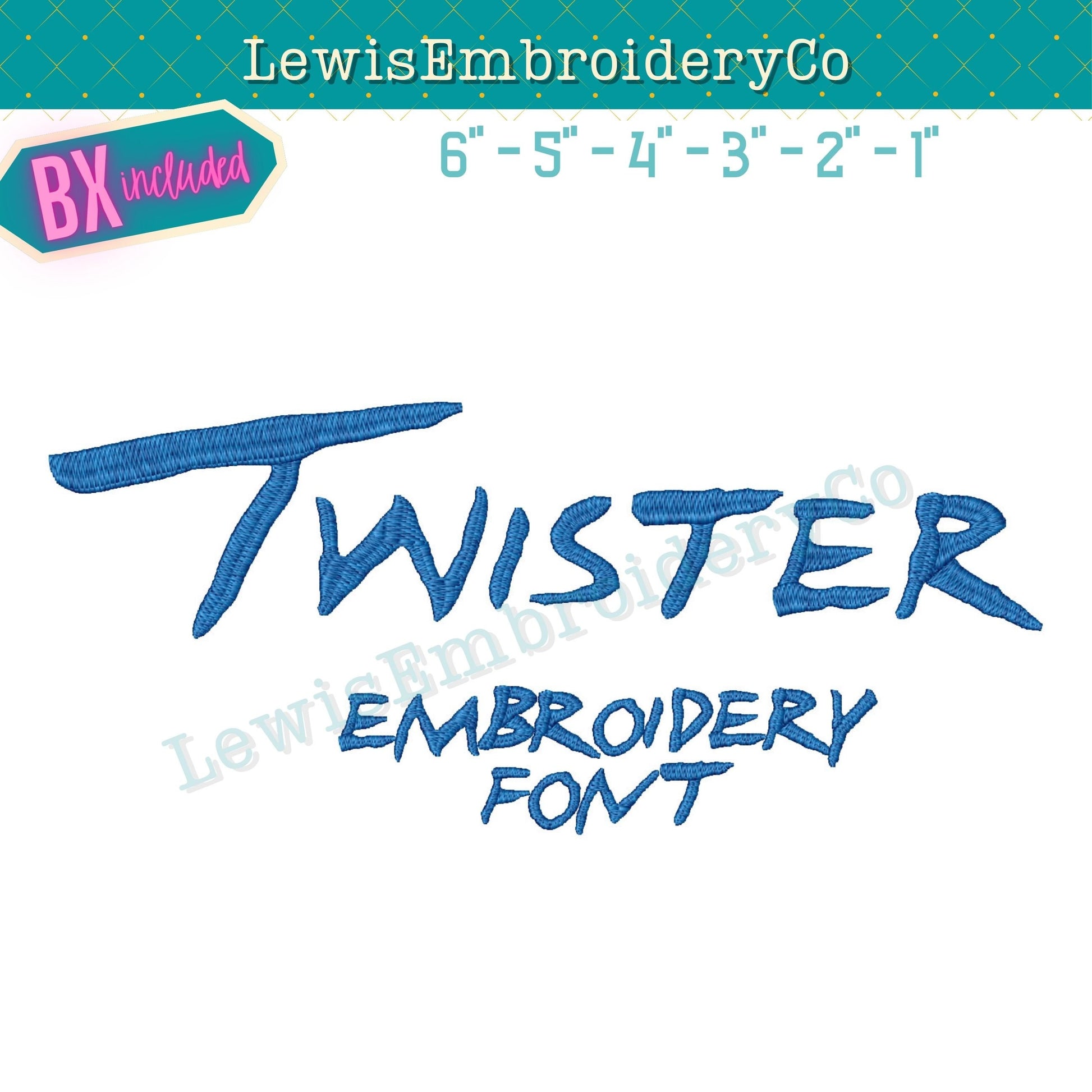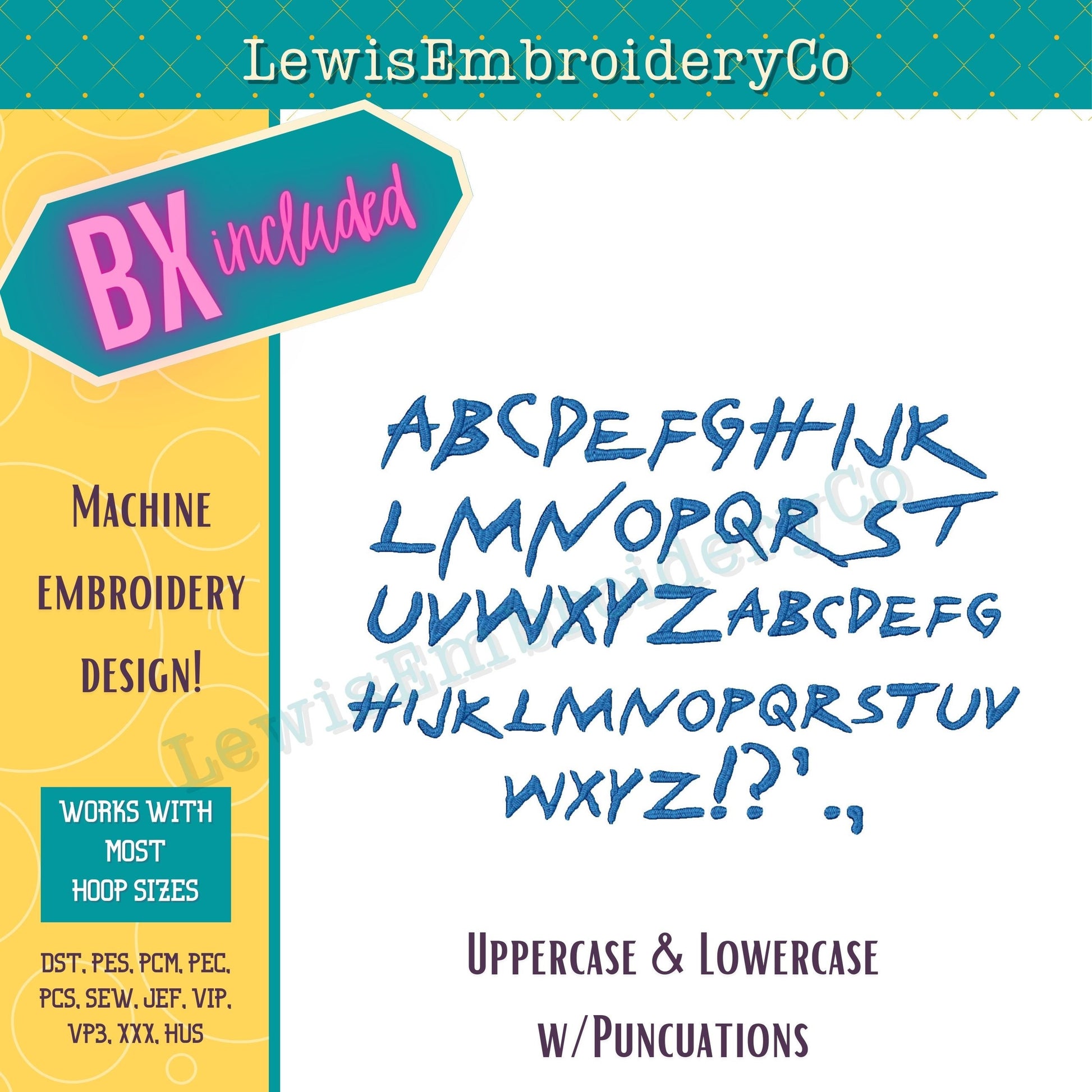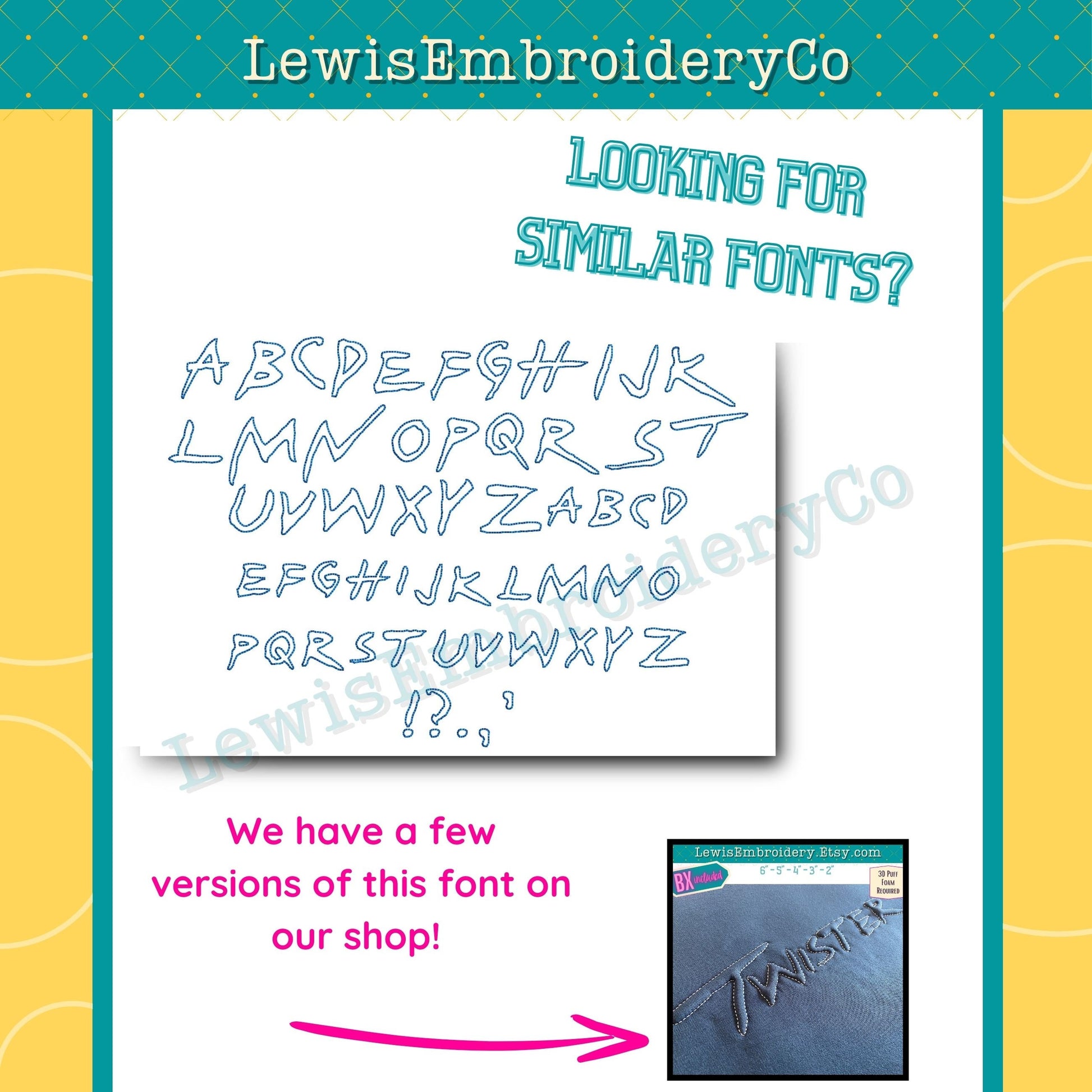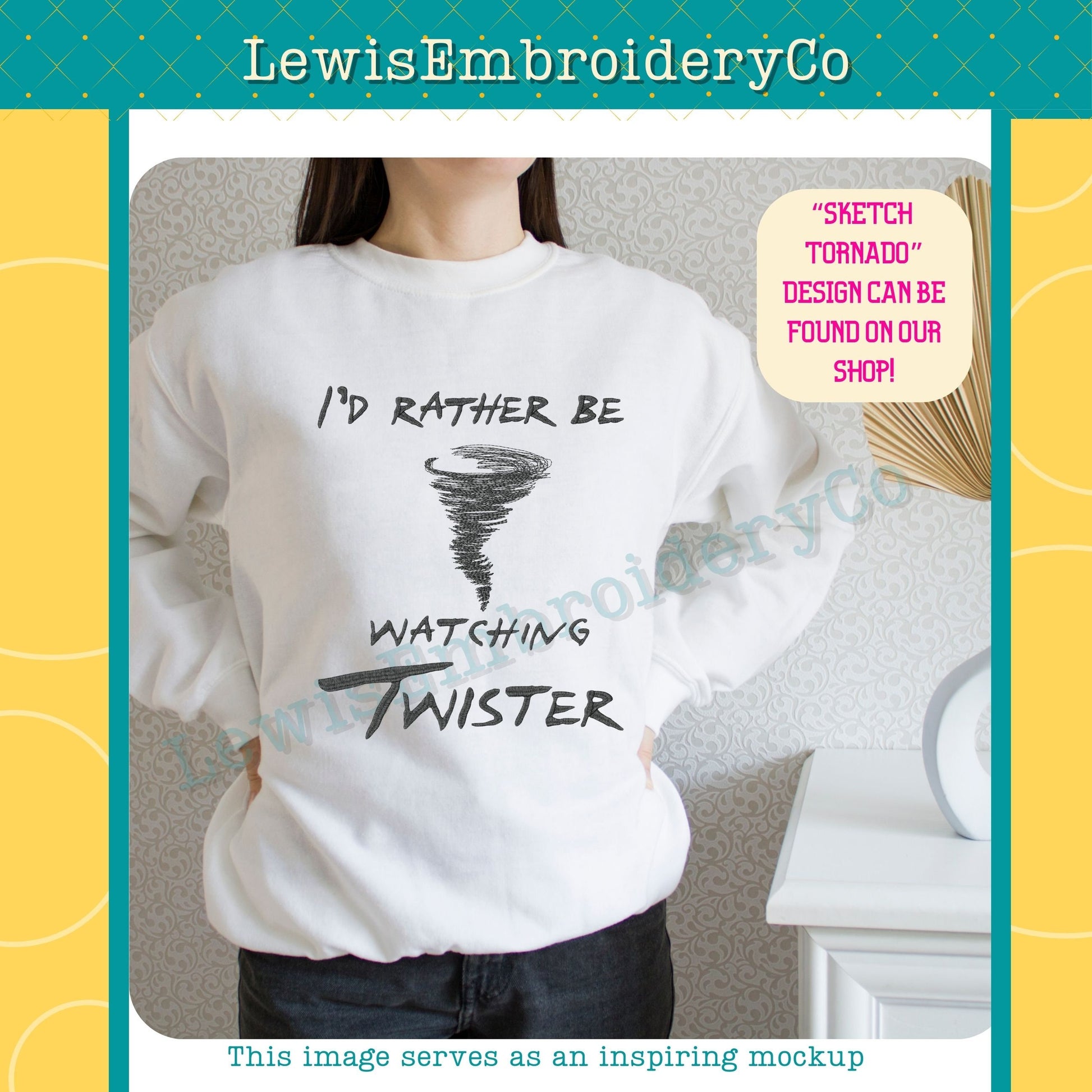
Twister Machine Embroidery Font - With BX - (Digital Download)
Twister Embroidery Font - Twister Embroidery - Tornado Alphabet Letters - Satin Fill Font - Rock and Roll Embroidery Font - BX Font